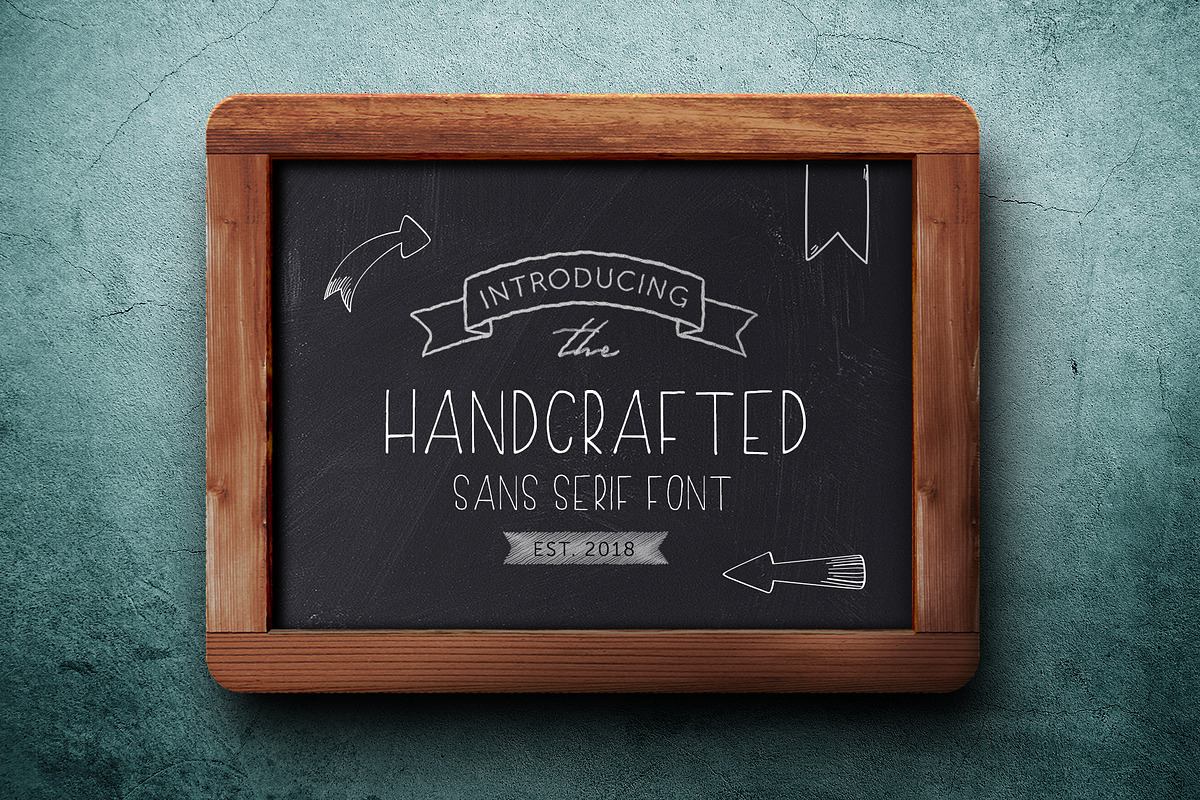
Blend authenticity with simplicity using Handcrafted Sans Serif Font Free Download. This charming typeface brings a human touch to clean sans serif forms, making it ideal for logos, packaging, labels, stationery, and branding projects that need a warm, approachable look.
With slightly irregular strokes and organic details, this font captures the essence of hand-drawn craftsmanship while maintaining modern clarity. It includes uppercase and lowercase letters, numerals, and punctuation—perfect for testing layouts that call for creativity with a personal feel.